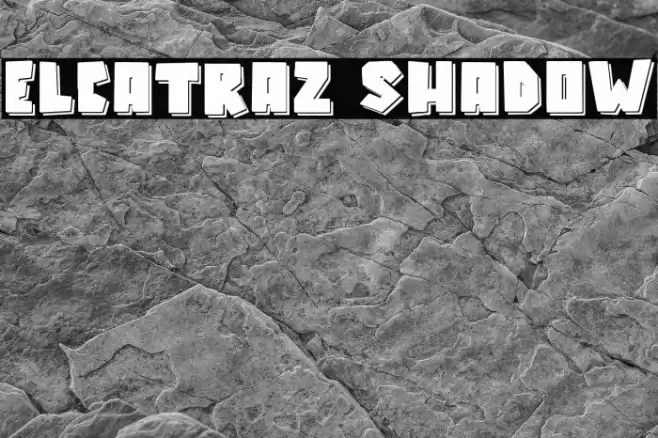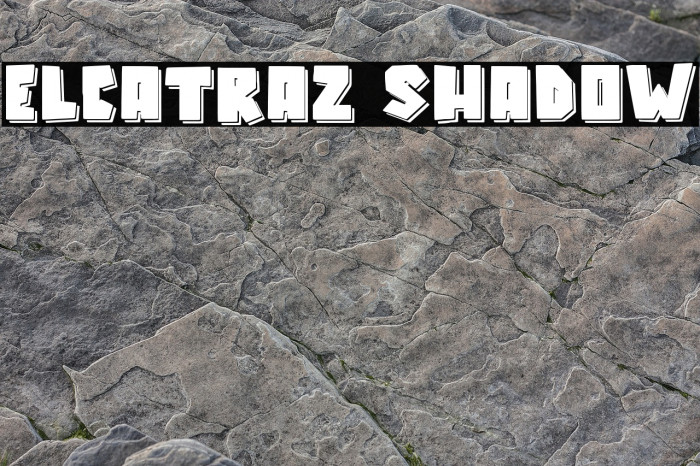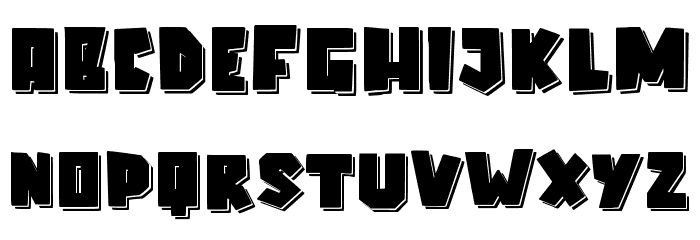
Elcatraz Shadow Font
Elcatraz Shadow Description
This font features a bold and striking design with a shadow effect that gives it a three-dimensional appearance. The uppercase letters are blocky and angular, creating a strong and impactful look. The lowercase letters are not present, but the style suggests they would follow the same bold and dynamic design. The numbers and special characters maintain the same shadowed, bold aesthetic, ensuring consistency across all elements. This font is ideal for projects that require a dramatic and eye-catching display, such as posters, headlines, or branding materials. The shadow effect adds depth, making the text stand out prominently.
A bold, shadowed font with a three-dimensional, impactful design from Cartoon fonts.
- Proposed Projects: Ideal for posters, headlines, branding, and any project needing a dramatic display.